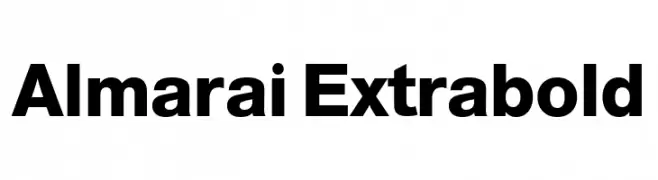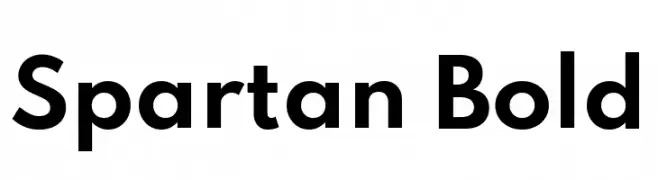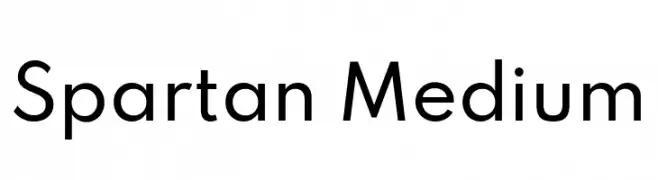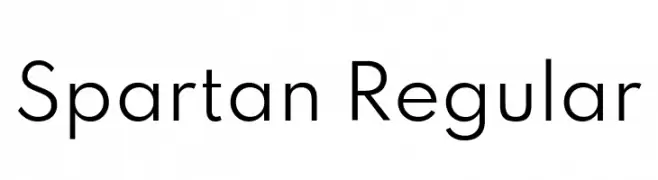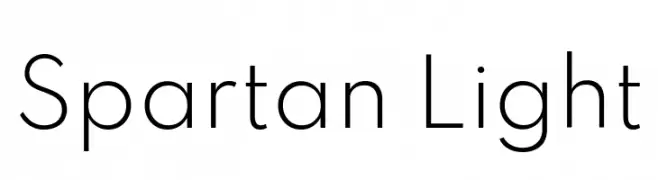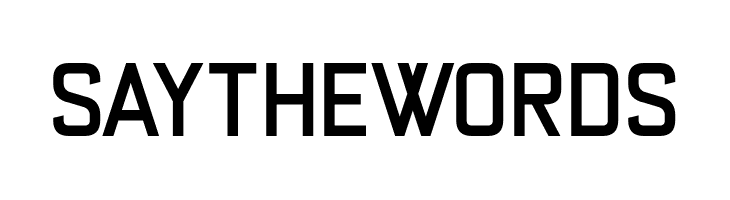
A bold, modern sans-serif typeface with strong visual impact.
A modern, light sans-serif font with clean lines and balanced spacing.
A modern, geometric sans-serif typeface with uniform strokes and clear characters.
A bold and modern typeface with thick strokes and a geometric style.
A bold, geometric sans-serif font with clean lines and uniform strokes.
A clean, geometric font with a minimalist and modern design.
A modern, geometric sans-serif typeface with clean lines and balanced proportions.
A clean, modern sans-serif font with geometric shapes and uniform strokes.
A modern, geometric sans-serif font with clean lines and balanced proportions.
A thin, modern font with clean lines and uniform spacing.